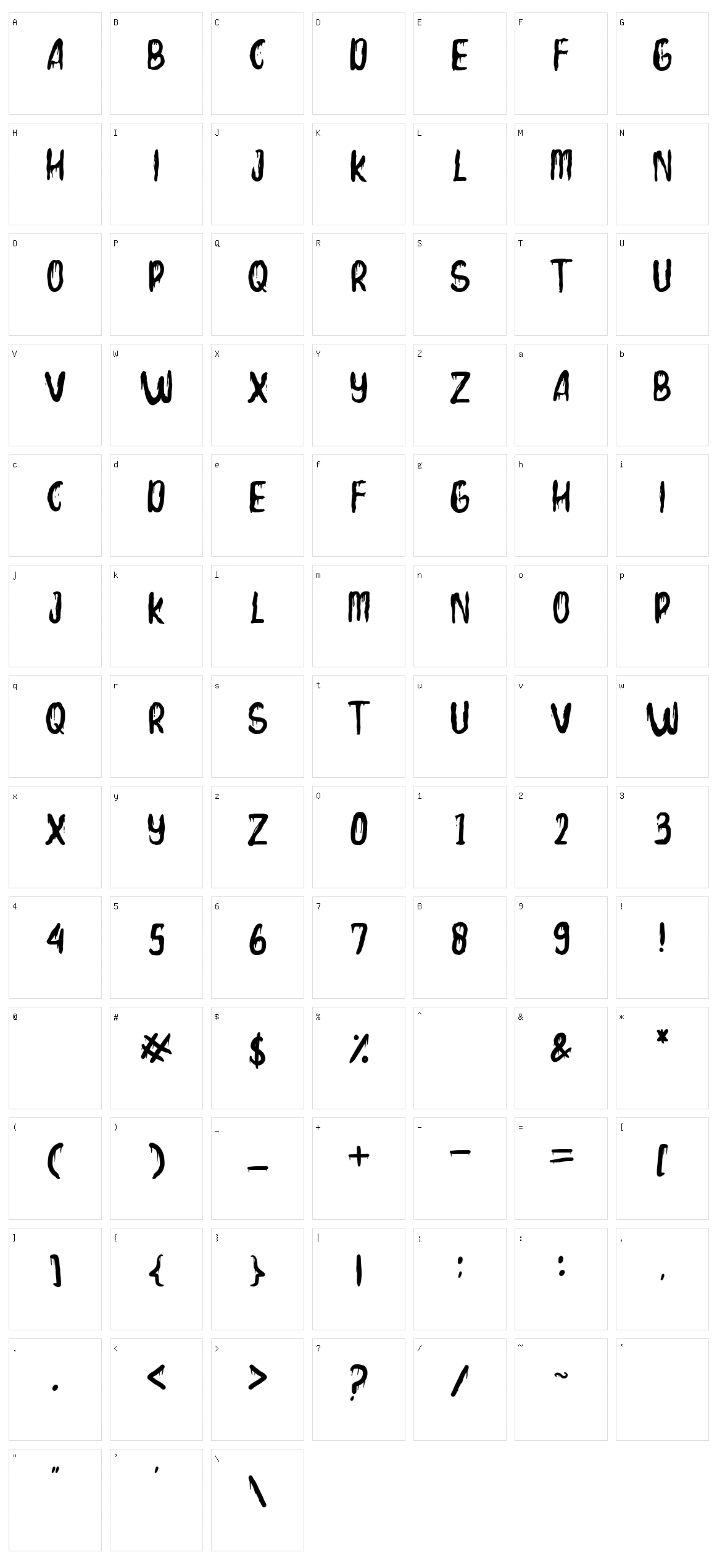
The free font Skeleton Blood is carefully designed by nomlimofont, showcasing a thoughtful balance of creativity and usability and falls under the Horror font style. When you download the ZIP file, it contains only 114.04 KB of font files, making it lightweight and quick to download. Please review the license details below to understand permitted usage and distribution rights. If license information is not available, we recommend using this font for personal projects only or contacting the author directly for commercial usage permissions.